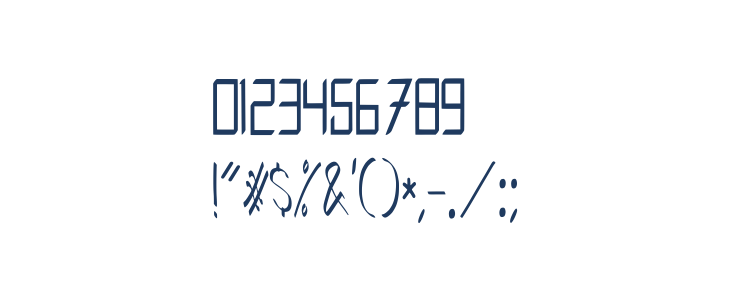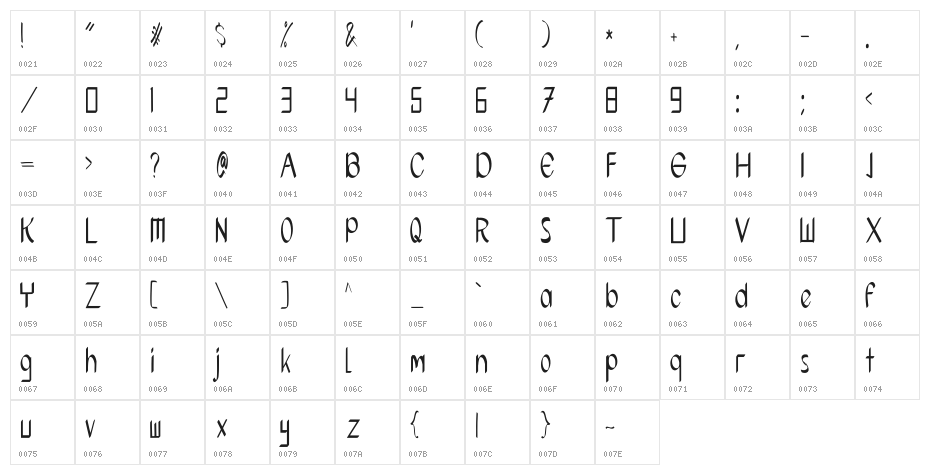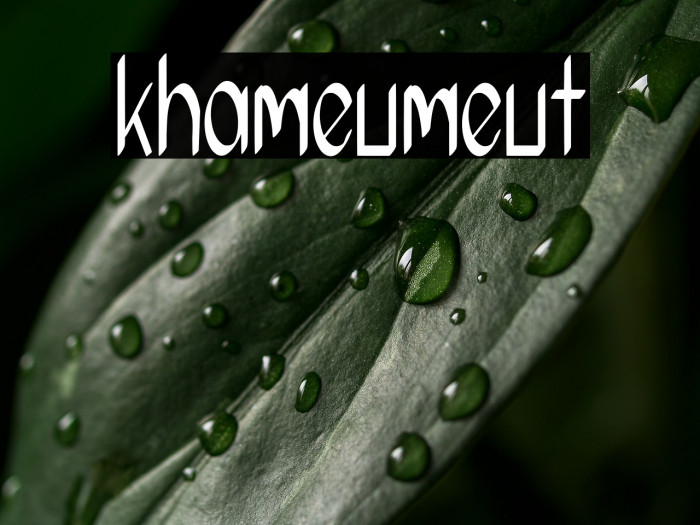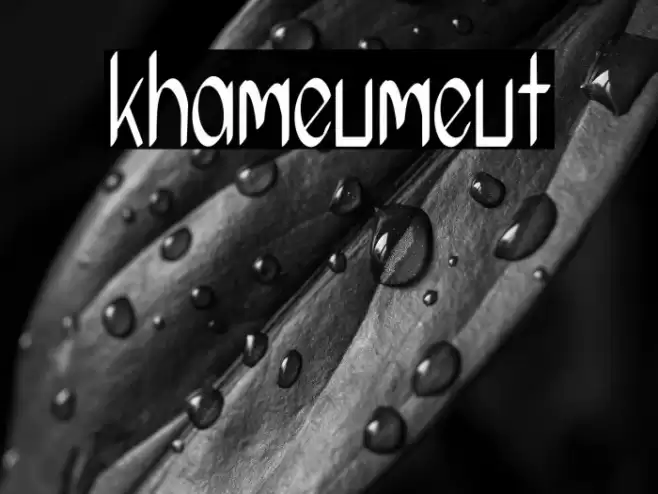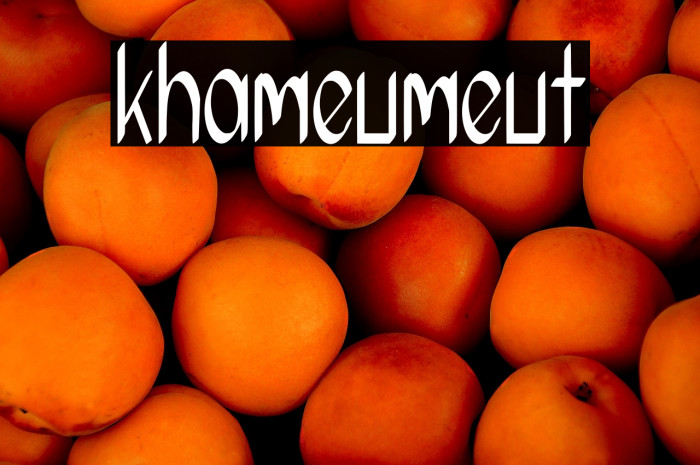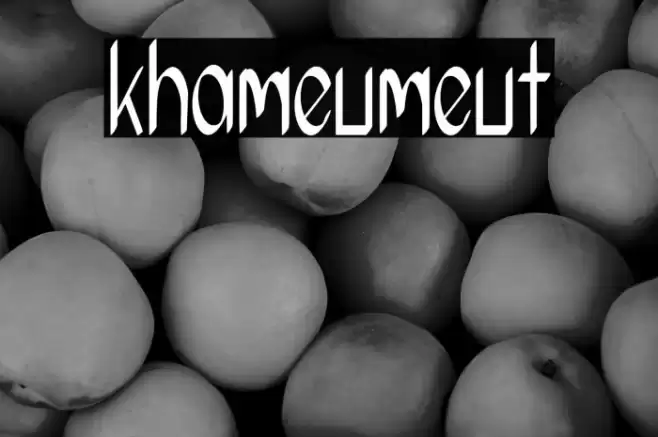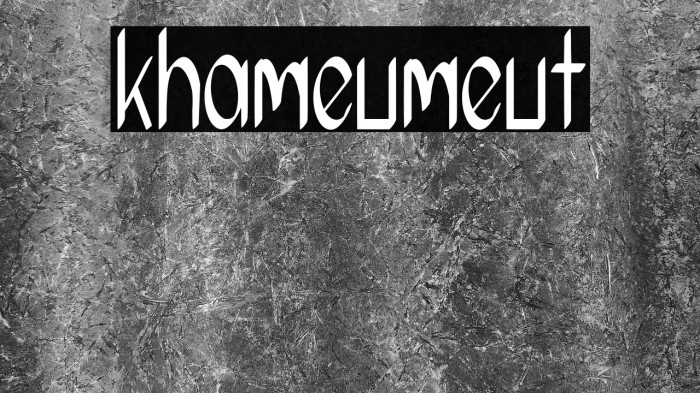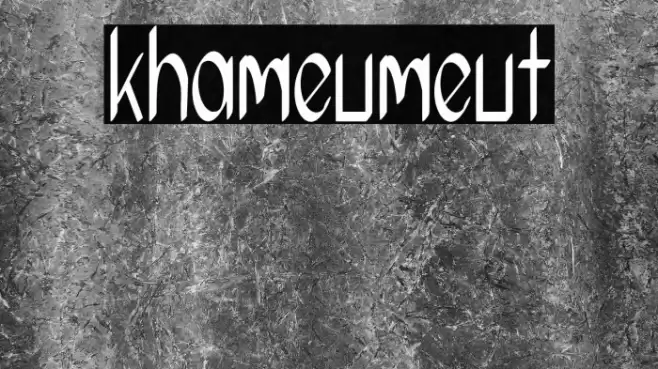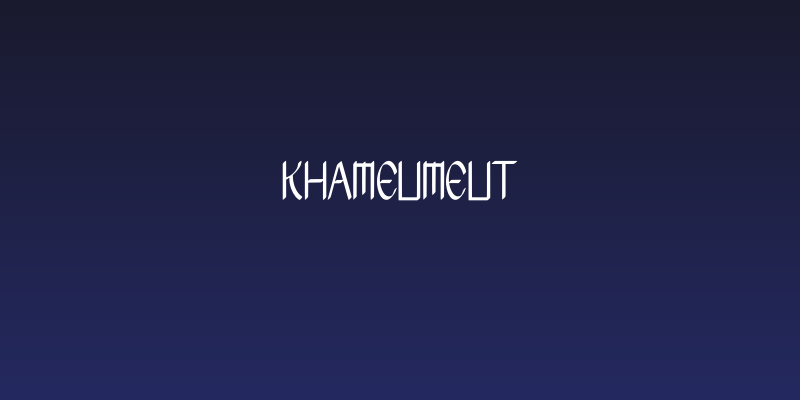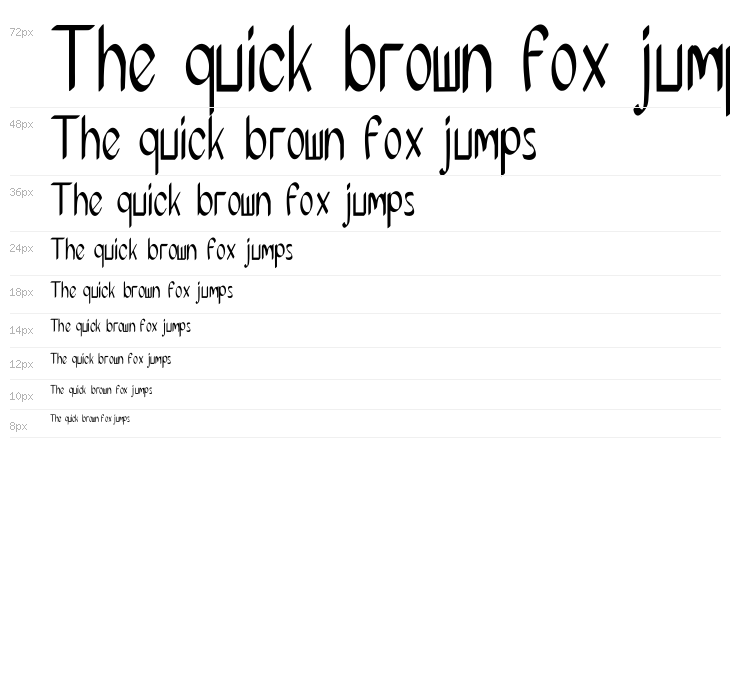
khameumeut Font
khameumeut Description
This font features a unique and artistic style with a blend of geometric and organic elements. The uppercase letters have a distinct angular design, while the lowercase letters maintain a more fluid and rounded appearance. The numerals are consistent with the overall style, offering a modern and slightly futuristic look. Special characters are creatively integrated, adding to the font's versatility. The strokes are consistent in weight, providing a balanced and cohesive appearance across all characters.
Use CaseLogos, Posters, Creative projects
Proposed ProjectsIdeal for branding, posters, and creative projects that require a distinctive and modern touch.